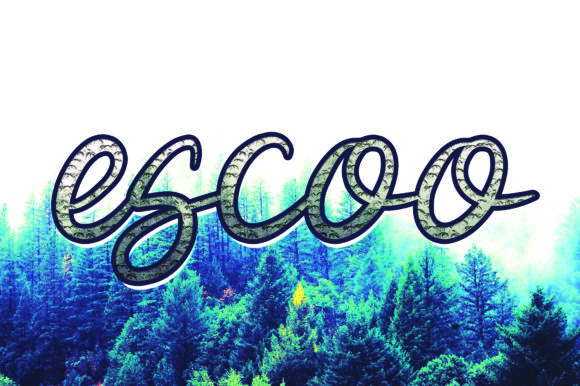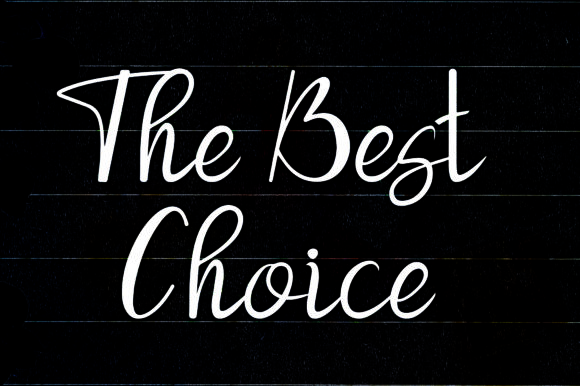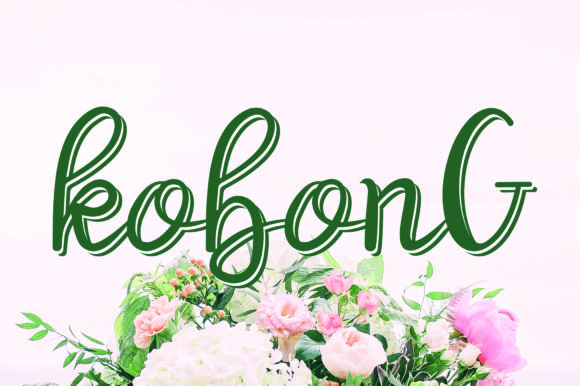
Bold Wroc Special Font – Free Download
Introduction to Bold Wroc Special Font
Bold Wroc Special is a sweet and delicate handwritten font.
Dainty and joyful, this font will be ideal for writing wedding invitations, cards or any other design that may need a romantic, personalized touch .
Key Features of Bold Wroc Special Font